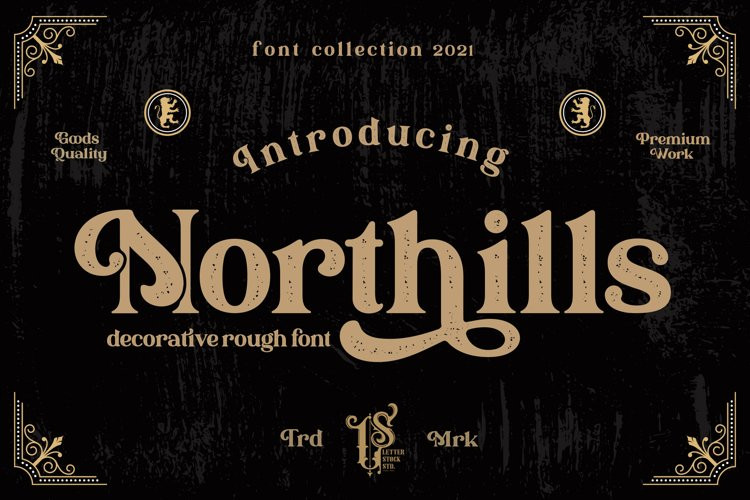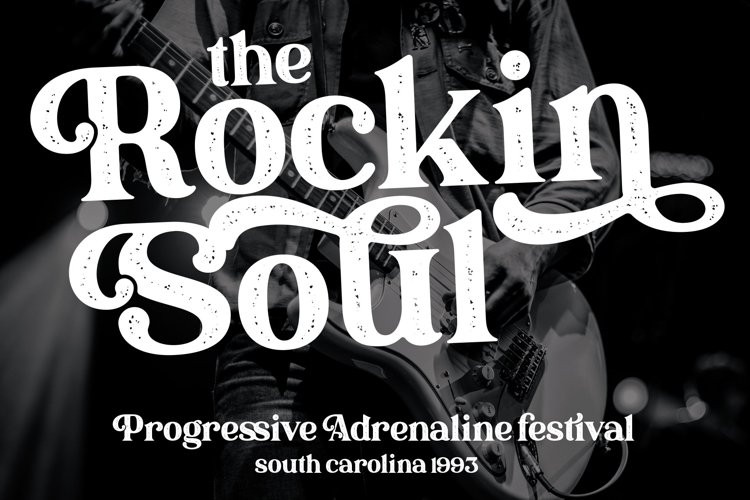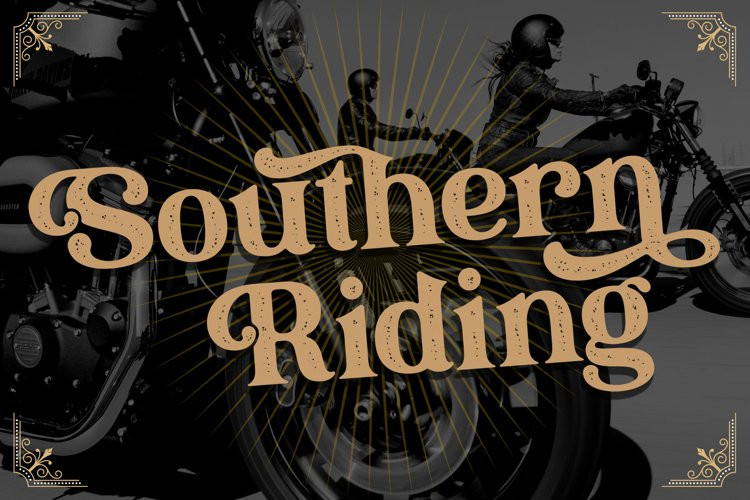
Northills Font
This pair was inspired by the great lettering poster design that i saw on some coffee shop, It was crafted by hand specially to add natural handmade feeling in its brand identity than i make it clean with pentool.
Northills font has 215 character set Northills is very good looking in labels, retro logo design, product packaging, invitations, advertising and others.
Rough lettering is always have a good retro vibes and give your design authentic and good looking, it’s perfect for branding or even poster design. If you looking for rough retro font for your logo or even lettering design, this font is a great choice to make your design authentic and good looking